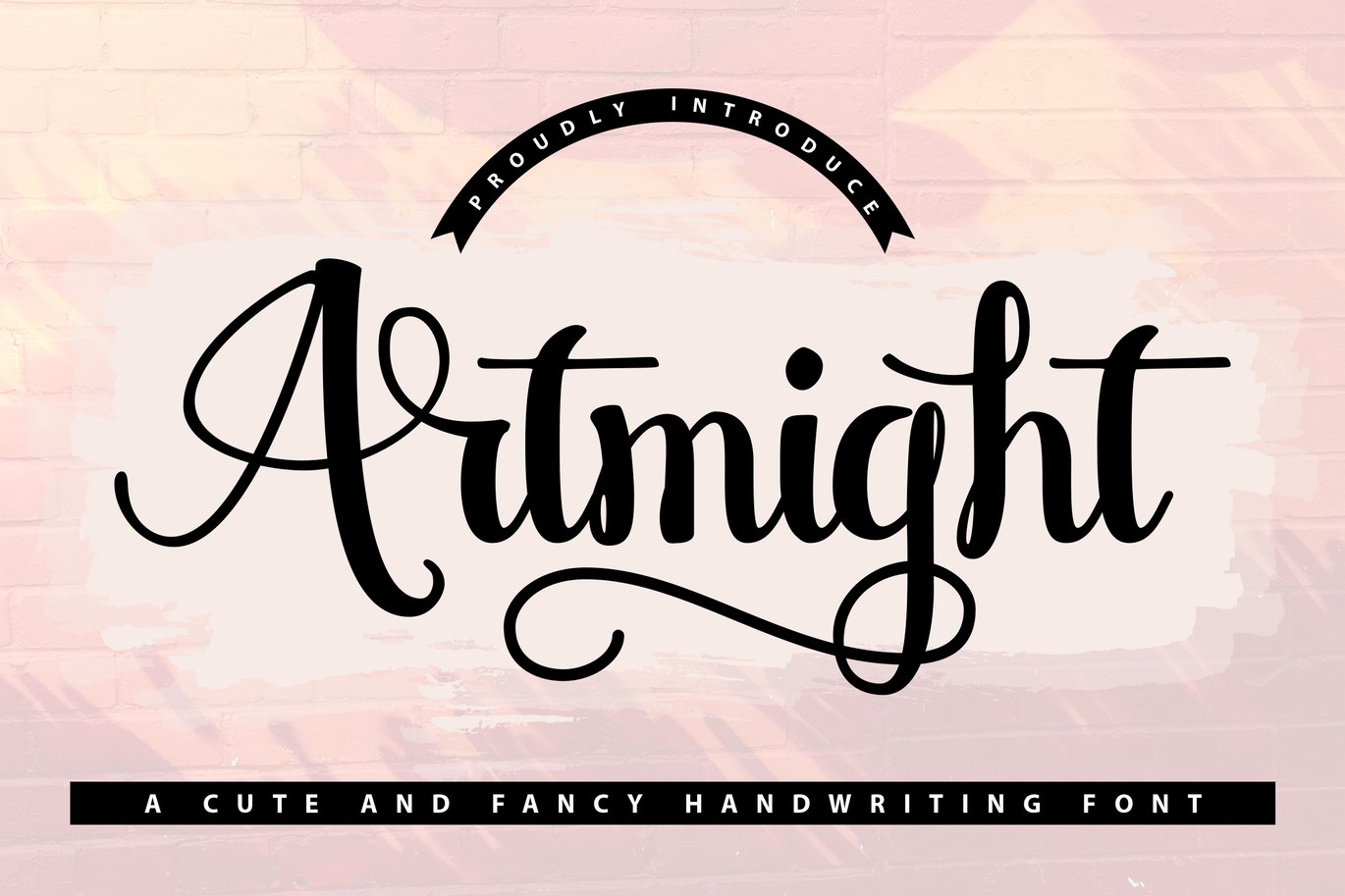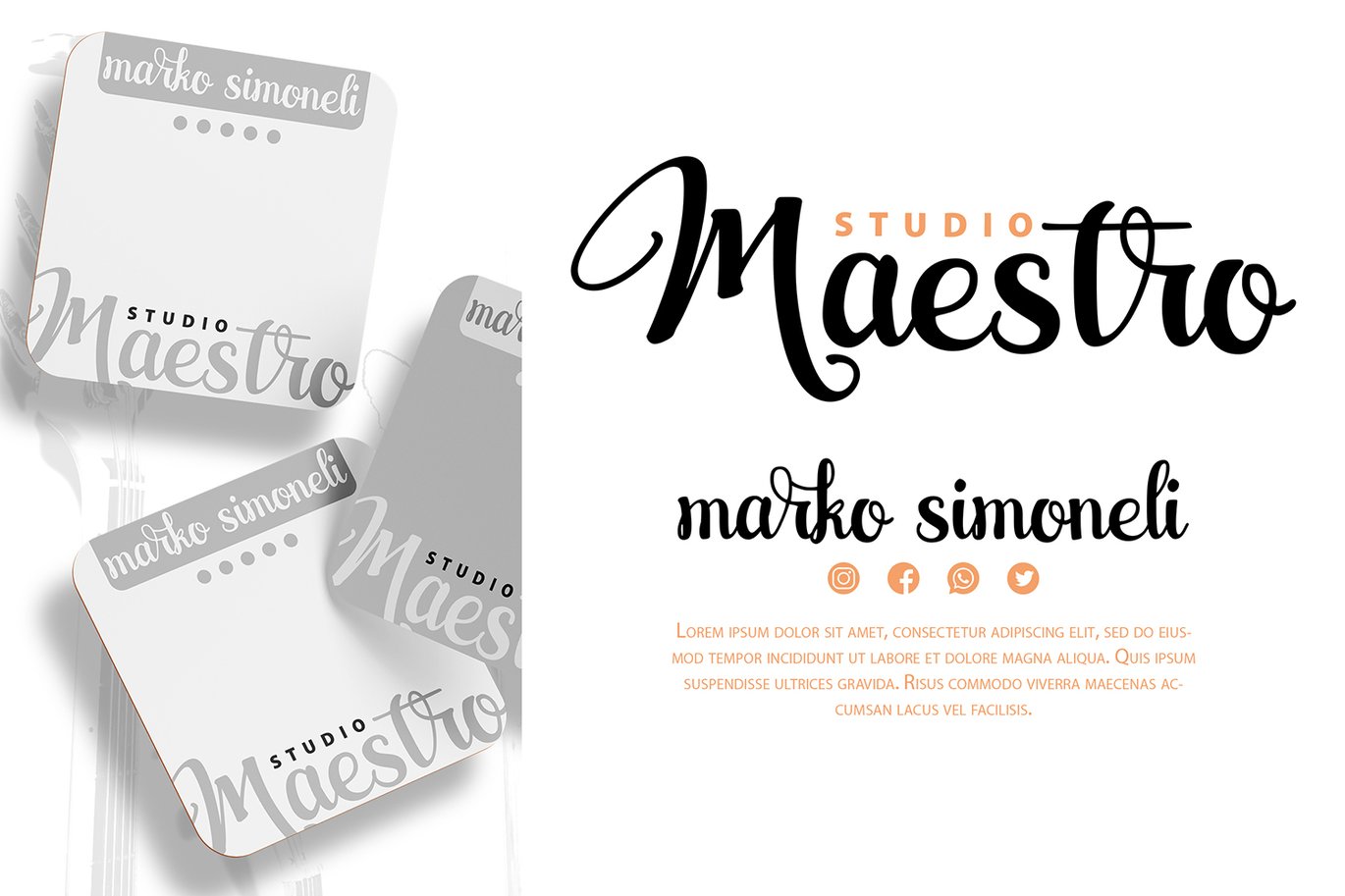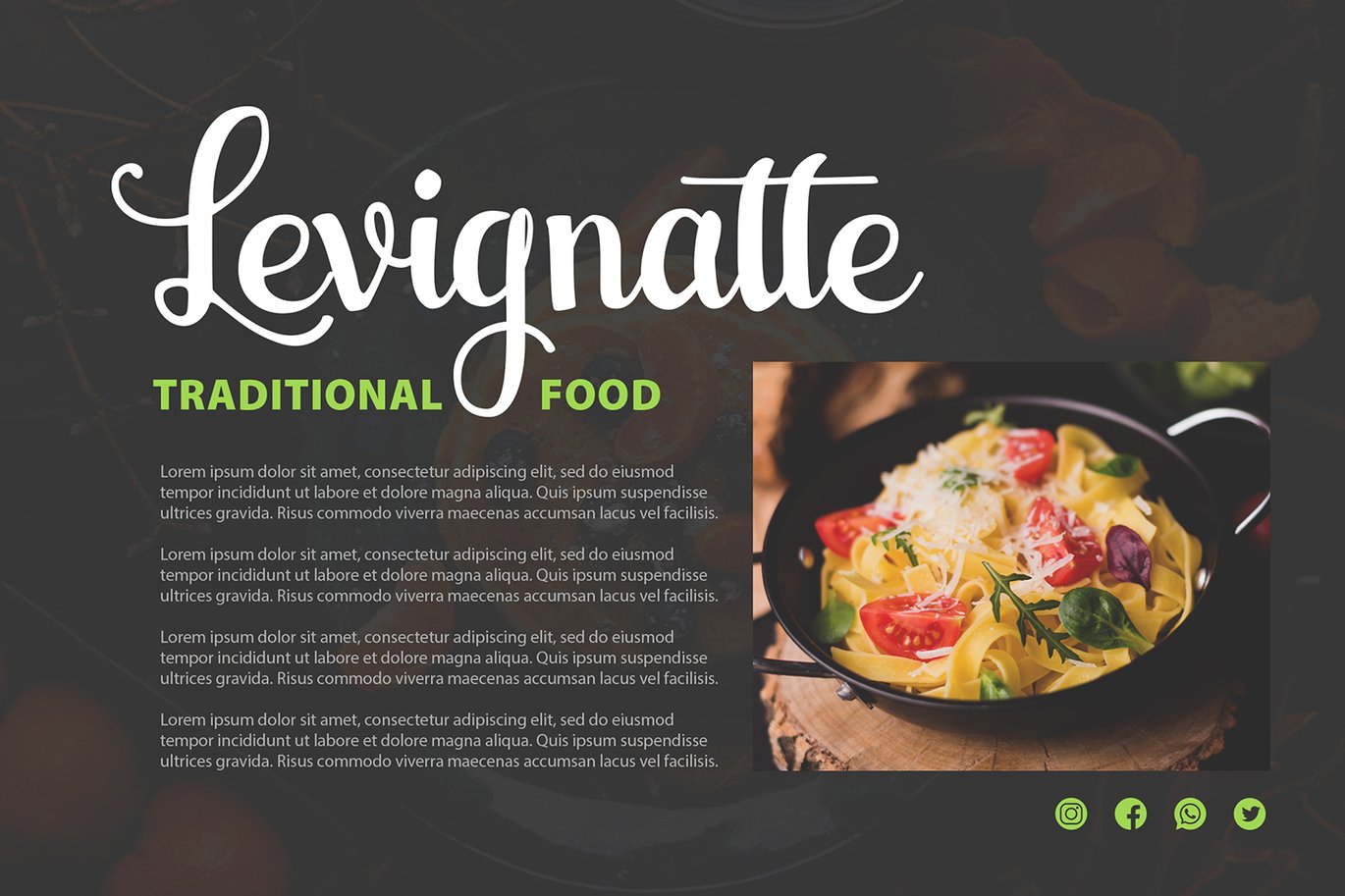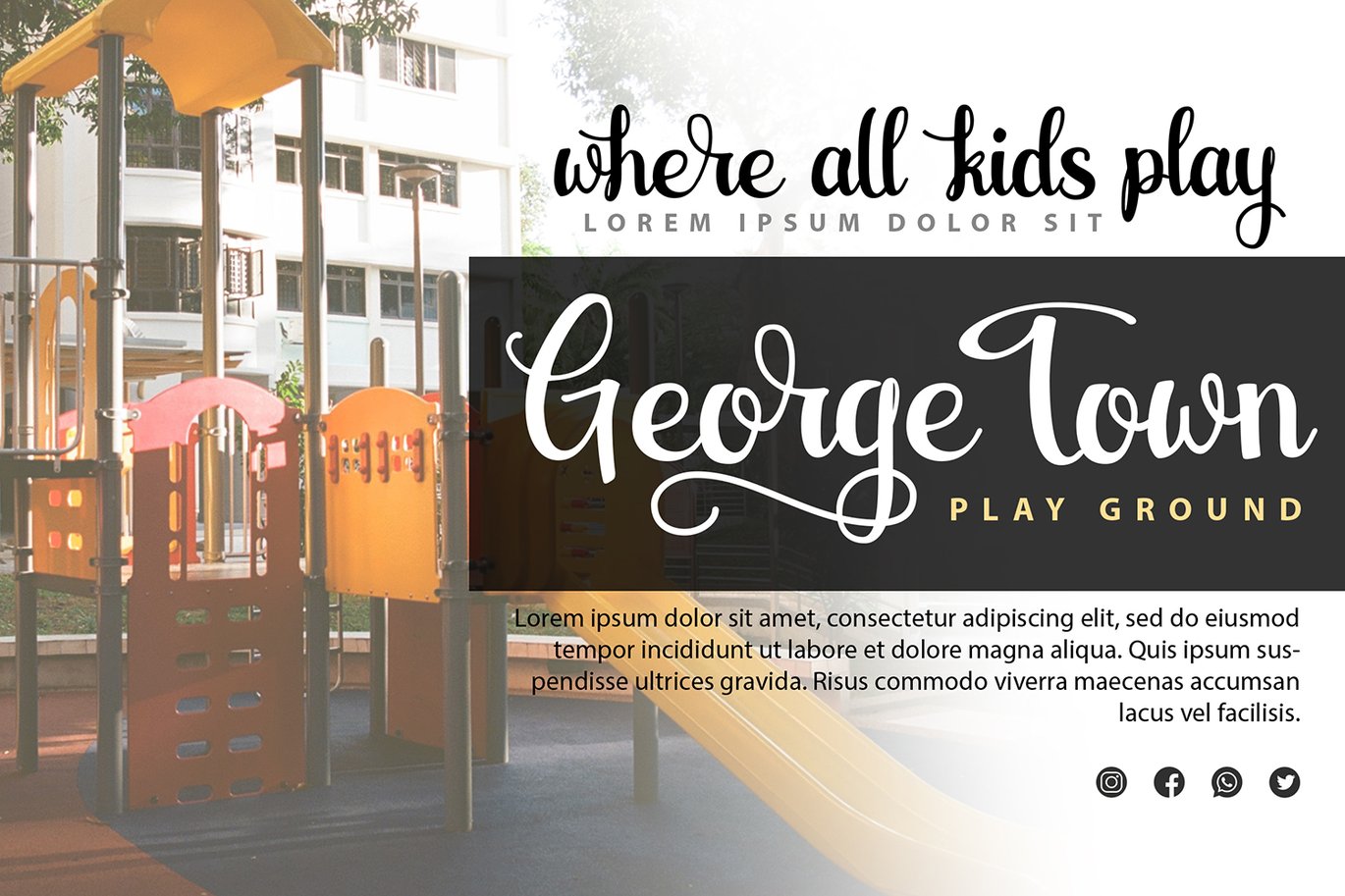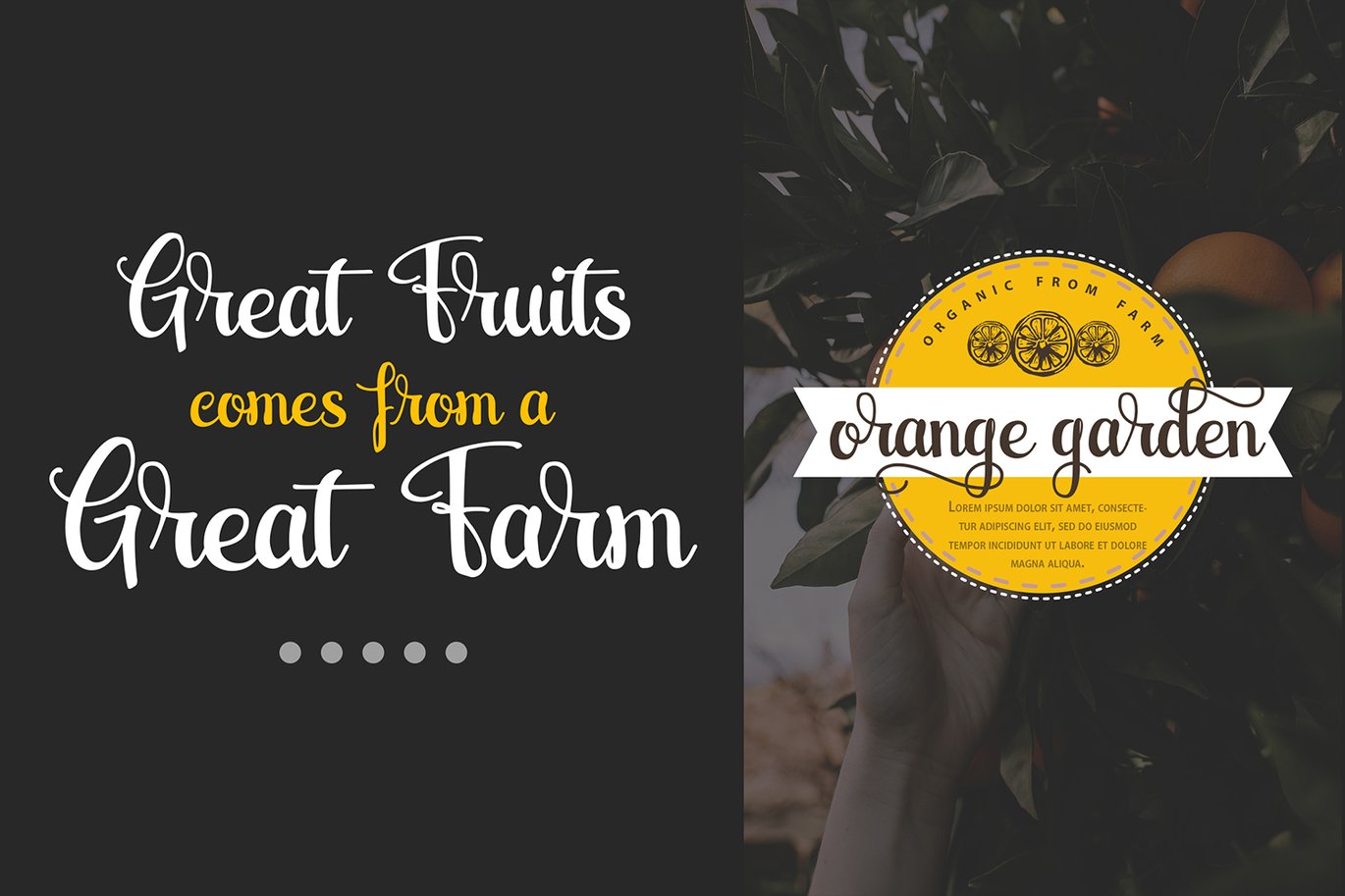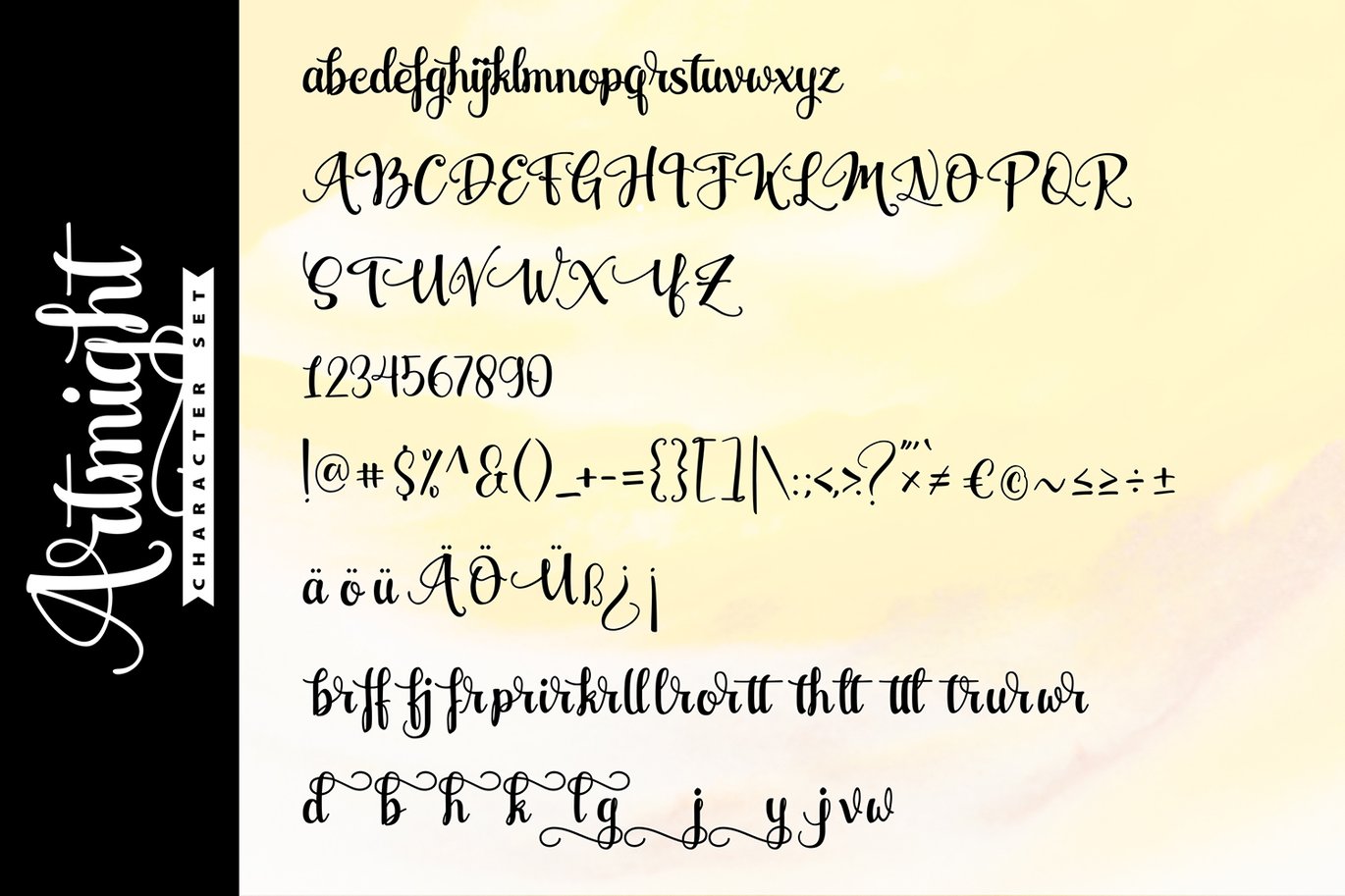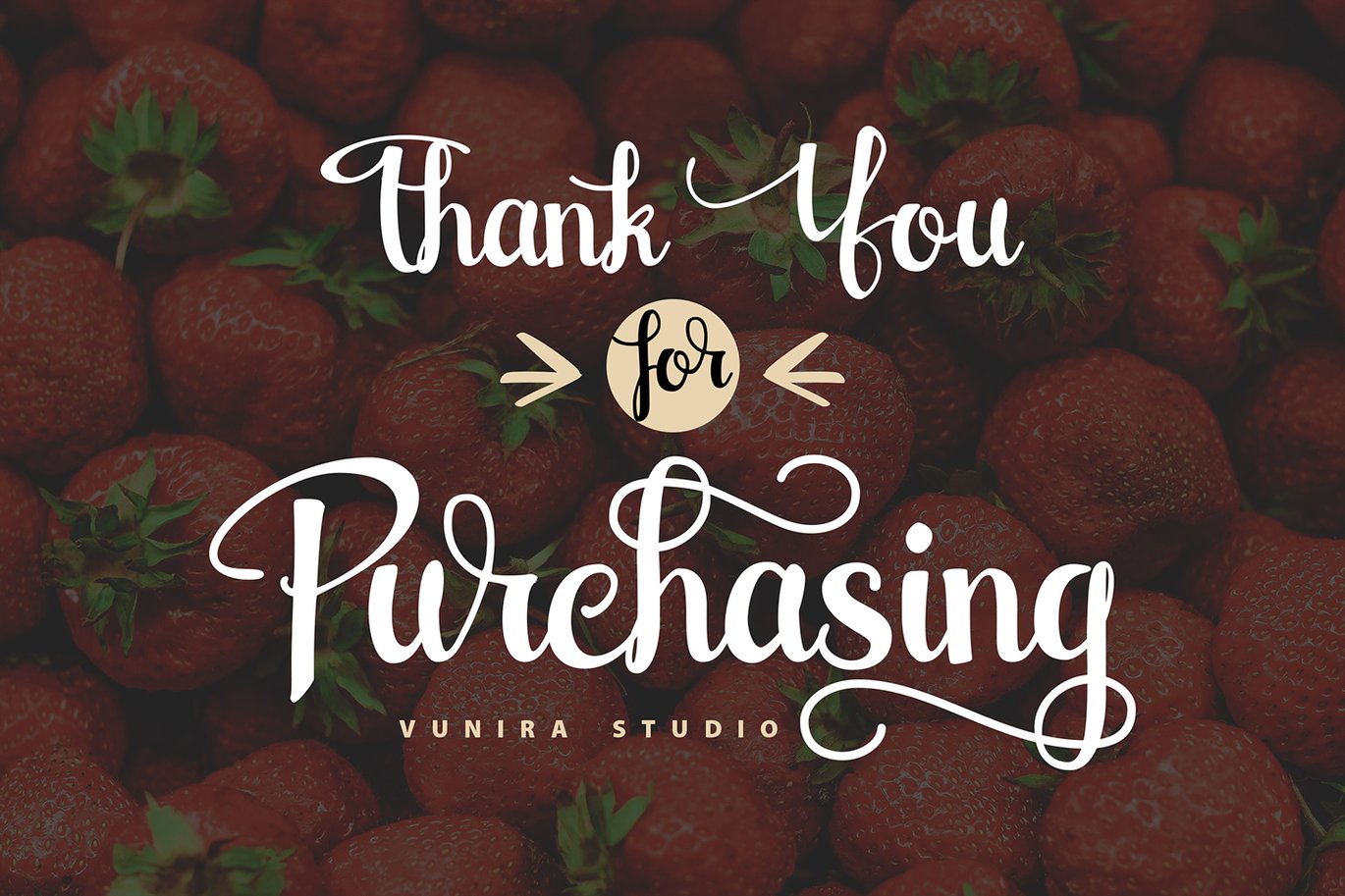
Artmight | A Cute & Fancy Handwriting Font
Artmight | A Cute & Fancy Handwriting Font with a calligraphy style, So beautiful on invitation like greeting cards, branding materials, business cards, quotes, posters, and more!